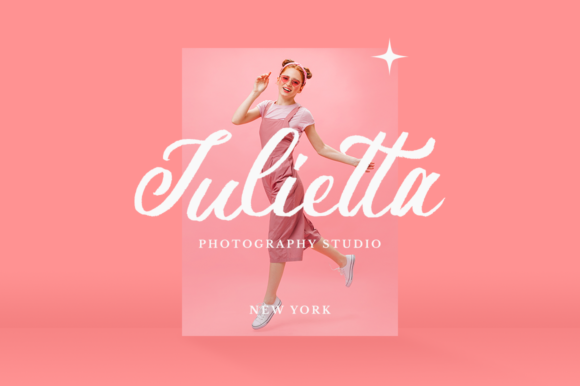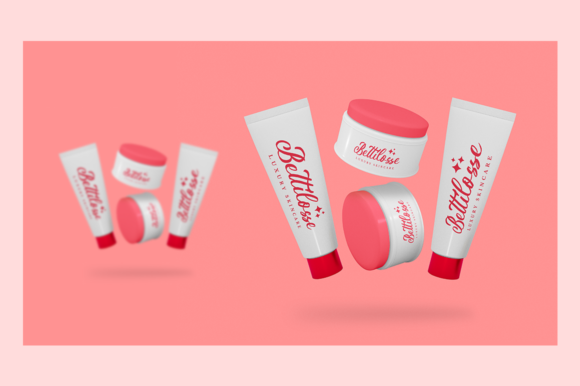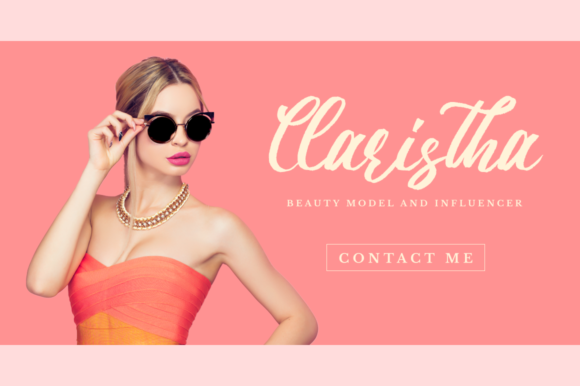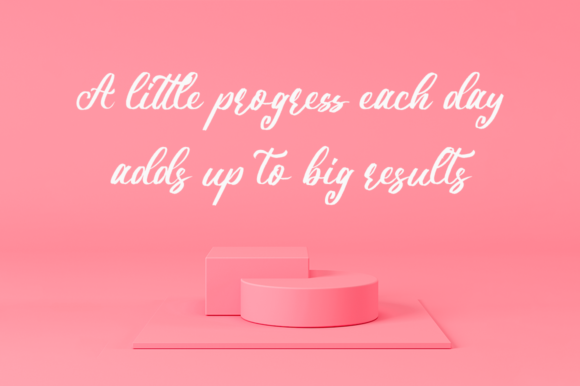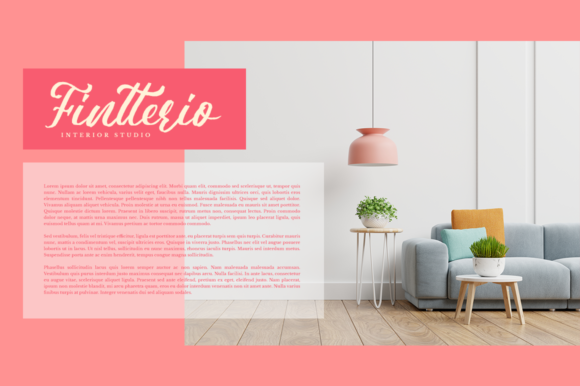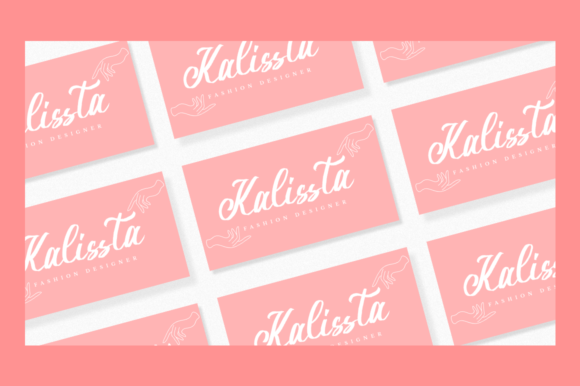
Introduction to Alovetha Font
As a creative, there’s nothing quite like the thrill of bringing a new idea to life. The spark of inspiration, the rush of excitement, and the satisfaction of seeing your vision take shape – it’s a feeling like no other. For me, it was the moment I stumbled upon the Alovetha Font. Its beautiful, handwritten script immediately caught my eye, and I knew I had to learn more.
The Alovetha Font is more than just a pretty face – it’s a powerful design resource that can elevate any creative project. With its high-quality, transparent background, it’s perfect for crafting custom cards, branding materials, labels, and so much more. And the best part? It’s available for free download, making it an invaluable asset for designers of all levels.
Key Features of Alovetha Font
- High-quality, unique design perfect for creative projects, available for free download.
- Includes a wide range of characters, including uppercase and lowercase letters, numbers, and special symbols.
- Perfect for use in logos, branding materials, and other design elements where a unique and creative touch is needed.
Honest Review: Alovetha Font
As a designer, I’ve had my fair share of fonts, but the Alovetha Font has caught my attention lately. I’ve been using it for a creative project and I must say, it’s been a great addition to my design resource.
What works well for me is the font’s unique and elegant design. The Alovetha Font is perfect for any project that requires a touch of sophistication and glamour. It’s also highly versatile and can be used for both digital and print designs. The free download option is a huge plus, making it accessible to designers of all levels.
Here are some of my favorite features of the Alovetha Font:
- High quality and crisp design
- Transparent background, making it easy to use on any design
- Perfect for titles, headings, and body text
However, there are a few limitations to the Alovetha Font. For one, it’s not as extensive as some other font libraries I’ve used. Additionally, the font is only available in a few weights, which might limit its use in certain designs.
Overall, I’m impressed with the Alovetha Font and would definitely recommend it to fellow designers. It’s a great addition to any design resource and can elevate any creative project. ⚠️ Just be aware of its limitations and use it accordingly. ✨
Tips for Getting the Most Out of Alovetha Font
For optimal results, use the Alovetha Font in conjunction with a high-quality image or background. Experiment with different font sizes and styles to achieve the desired effect.
The Alovetha Font is ideal for a variety of creative projects, including logos, business cards, and social media graphics. Its high-quality design and transparent background make it a versatile resource for designers and non-designers alike.